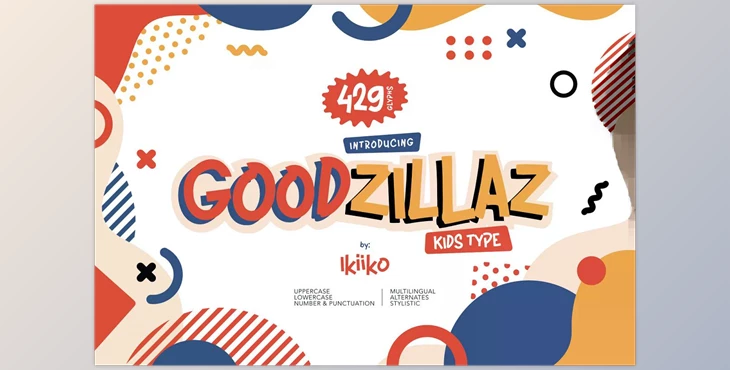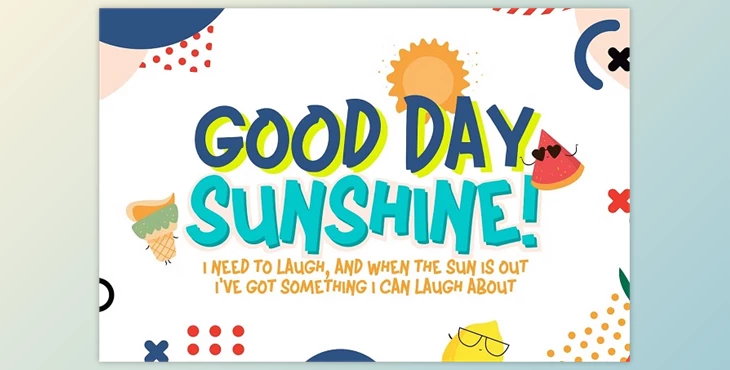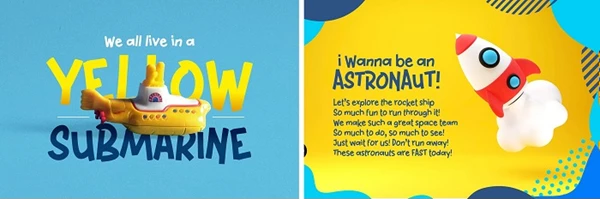
The Goodzillaz – Kids Type Font is a vibrant and playful typeface designed to infuse designs with joy and optimism.
Its unique gestures exude a sense of happiness, making it ideal for kid-related items such as posters, advertisements, and packaging.
With features like uppercase and lowercase characters, numbers, punctuation, and multilingual support, Goodzillaz offers versatility for various design needs. Compatible with both PC and Mac, this font comes in TTF and OTF formats, making it accessible to all users.